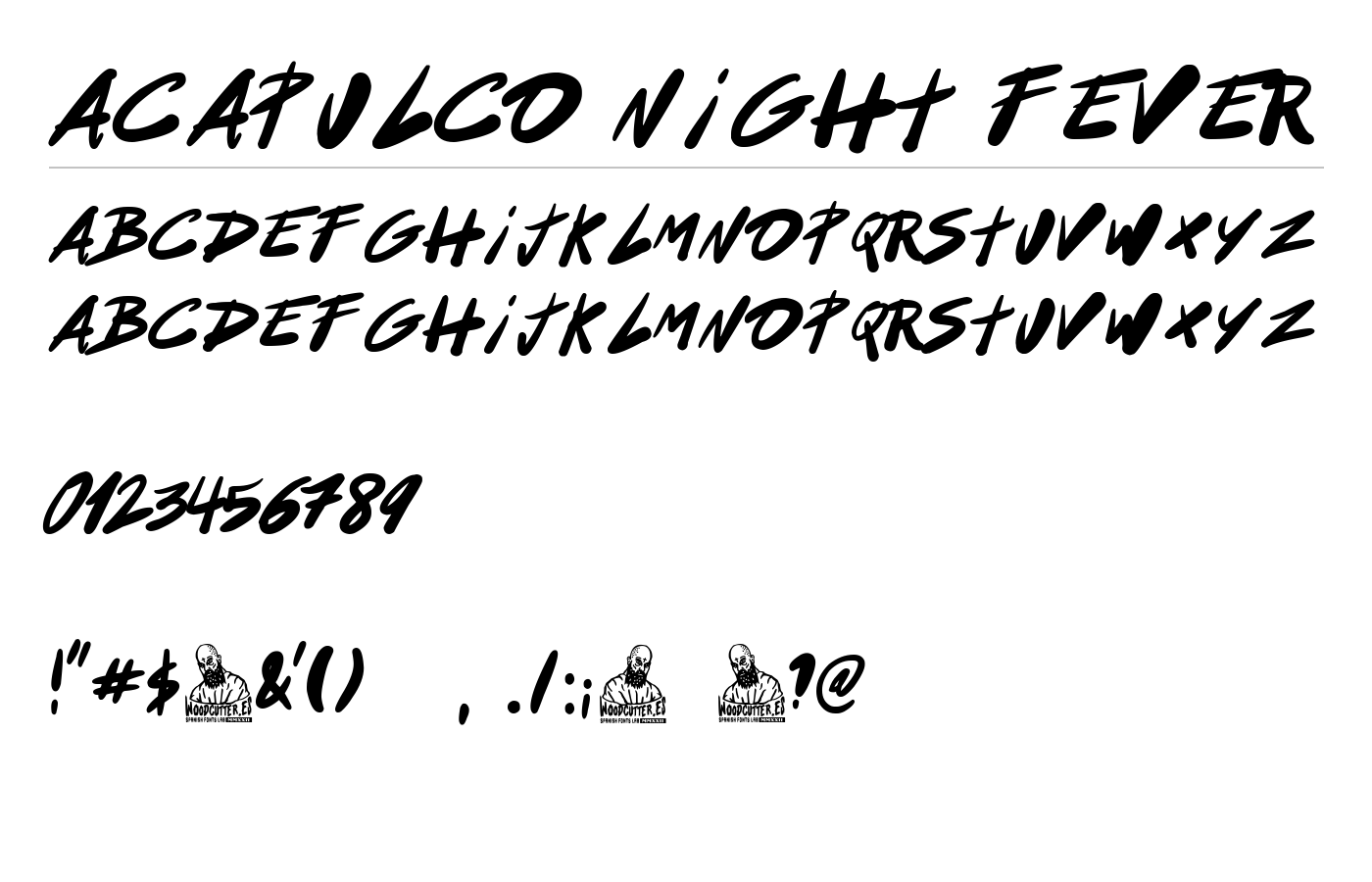
Acapulco Night Fever is a dynamic brush script font that radiates energy and spontaneity with its bold, slightly condensed letterforms and lively stroke variations. Its informal, hand-painted style makes it perfect for vibrant, modern designs that want to convey excitement and fun, such as posters, branding for nightlife or entertainment, and eye-catching headlines. This font’s expressive personality adds a playful, urban feel ideal for projects seeking a fresh, energetic vibe.
Acapulco Night Fever Font
About Acapulco Night Fever Font